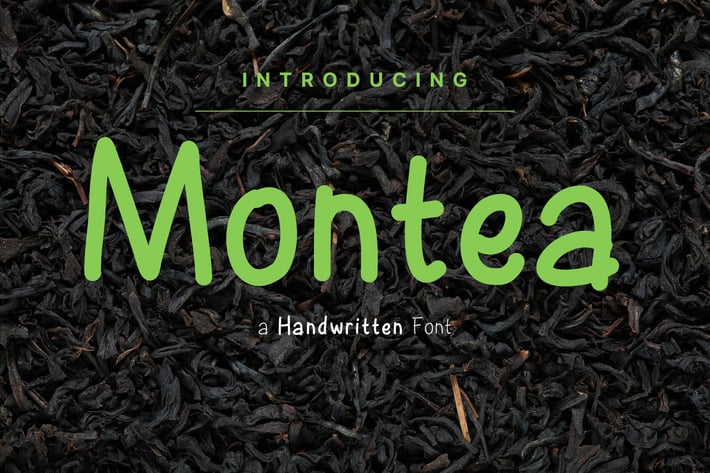
Montea - Simple Handwritten Font
Montea is a simple handwritten font for all your design needs. Suitable for fun, charming, enjoyable, and calm characteristic design images. Suitable for tote bags, postcards, quote posts, social media, website, fashion, foods, posters, stickers, labels, etc.